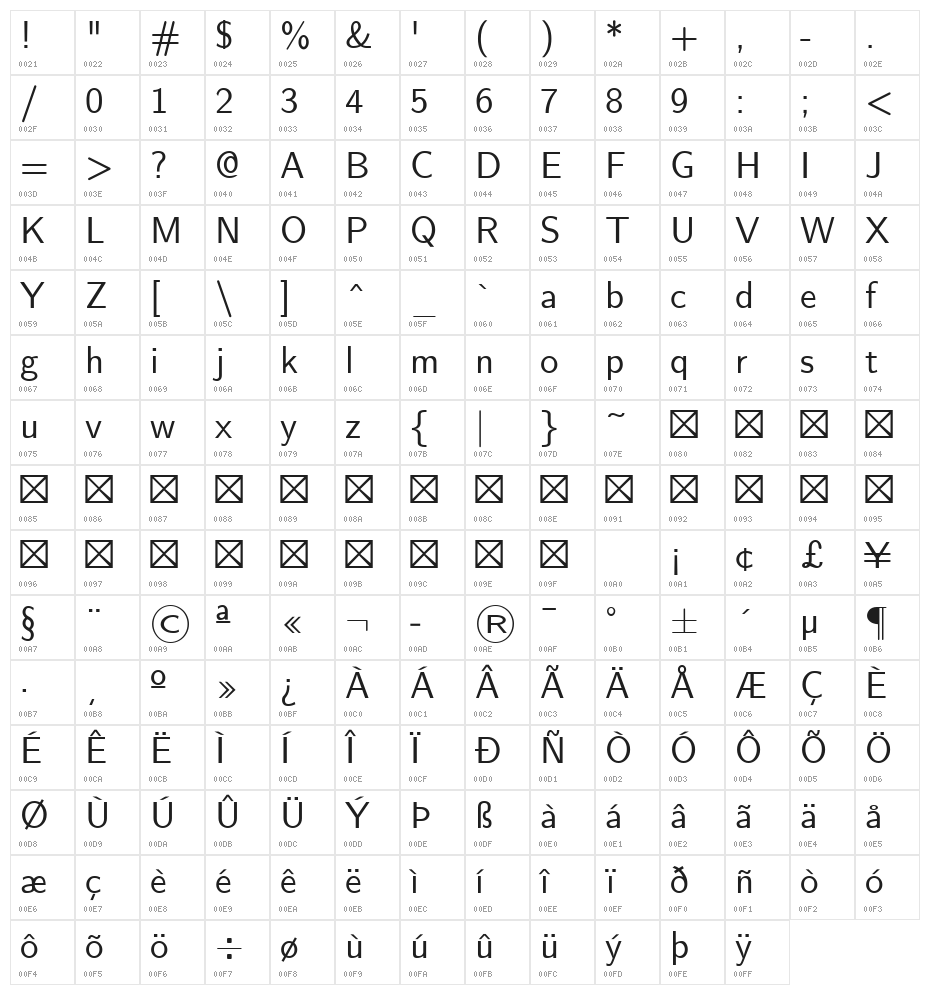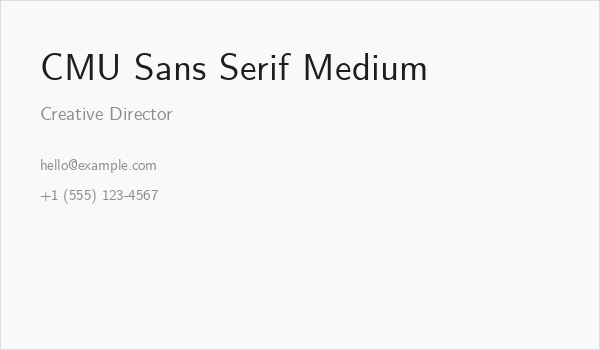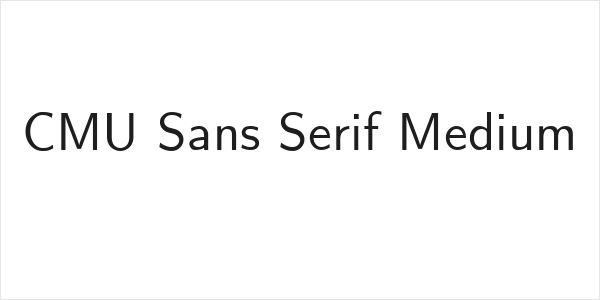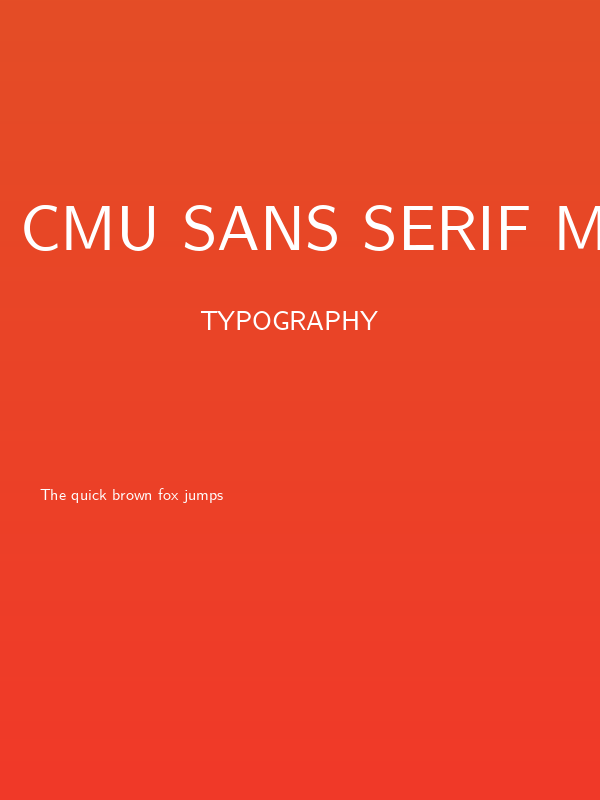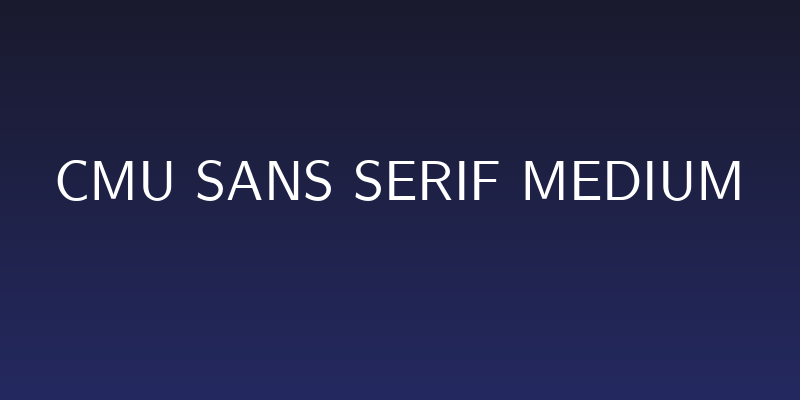
CMU Sans Serif Medium Font
CMU Sans Serif Medium Description
This font features a clean and modern sans-serif design, characterized by its medium weight and balanced proportions. The characters exhibit a uniform stroke width, contributing to a harmonious and legible appearance. The uppercase letters are bold and assertive, while the lowercase letters maintain a friendly and approachable feel. The numerals are clear and distinct, ensuring readability in various contexts. Special characters are well-integrated, maintaining the overall aesthetic of the font. The design is versatile, making it suitable for a wide range of applications from digital interfaces to print media.